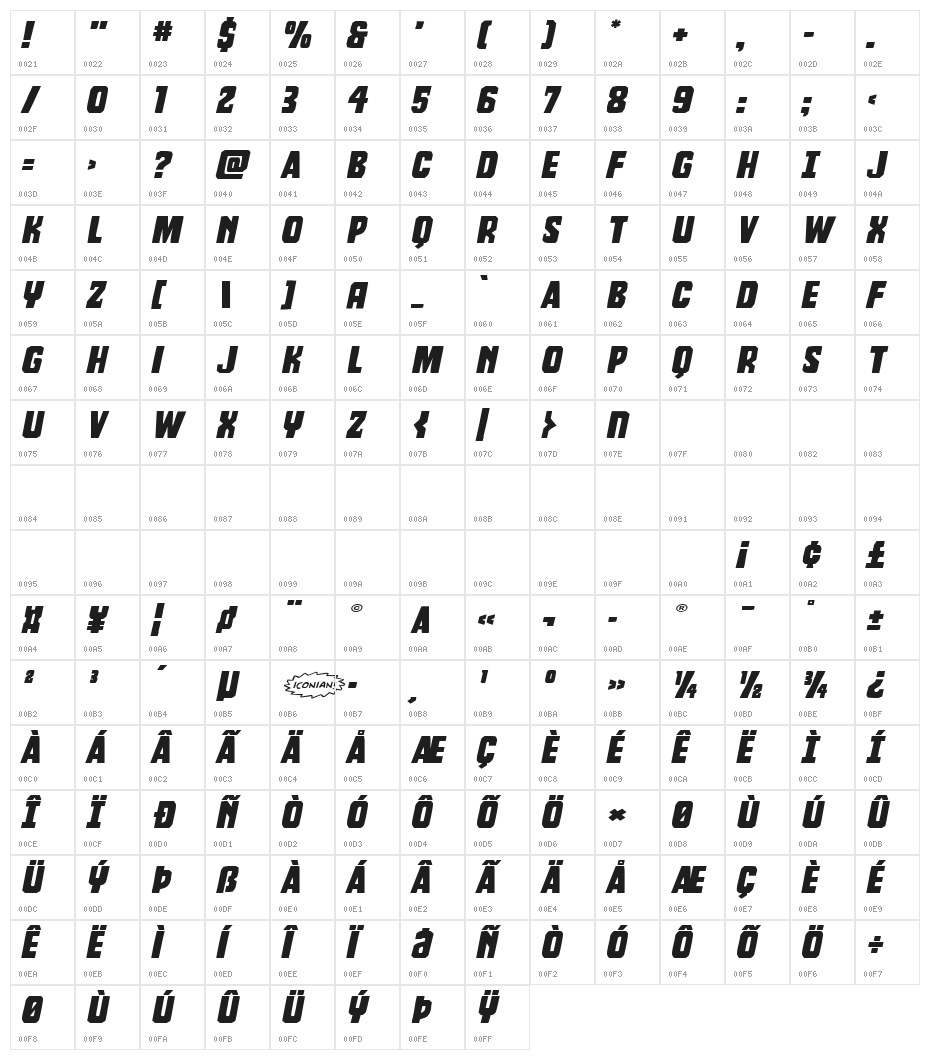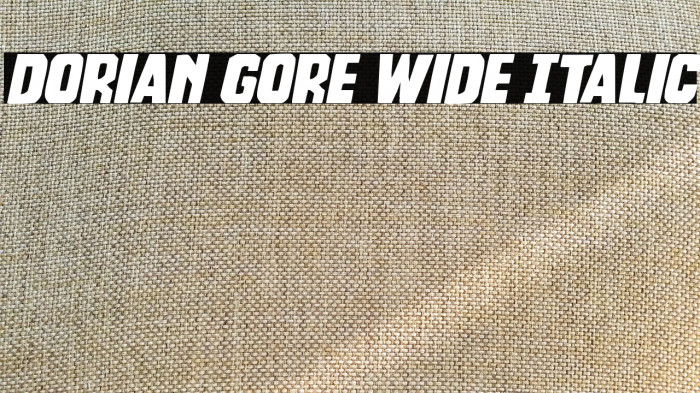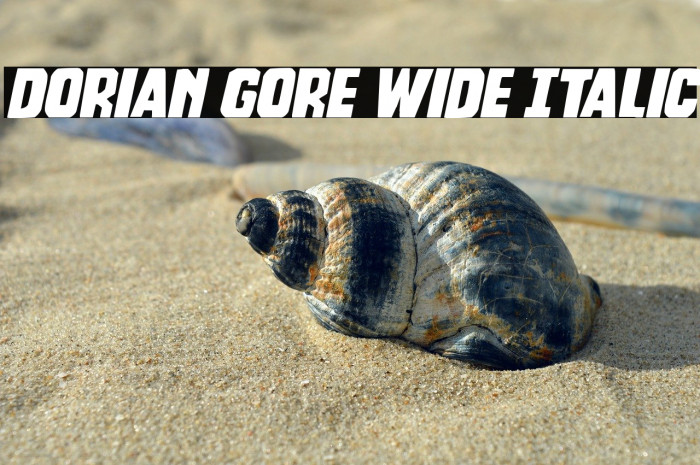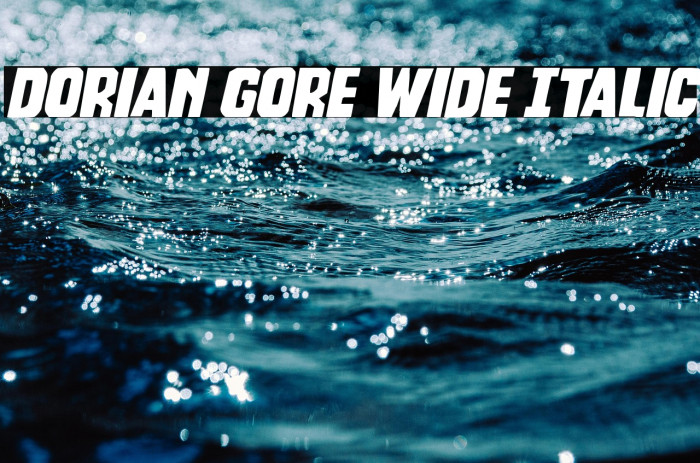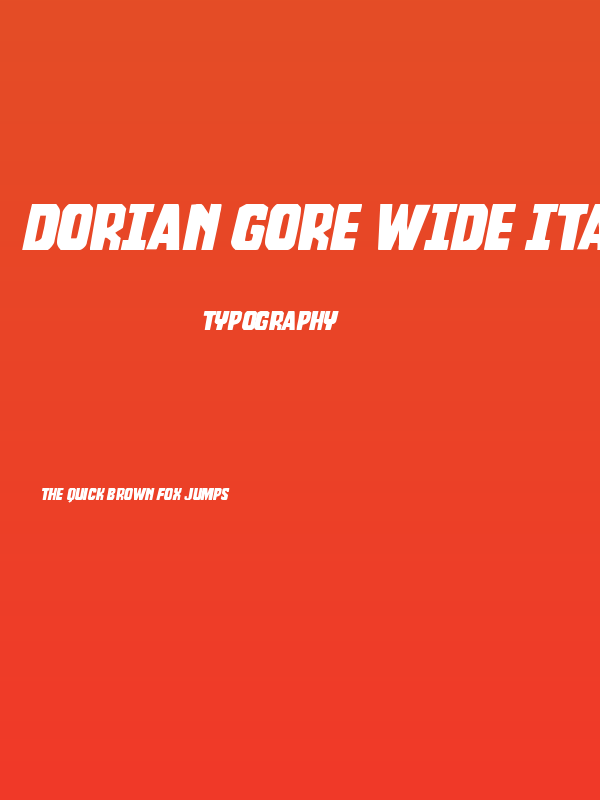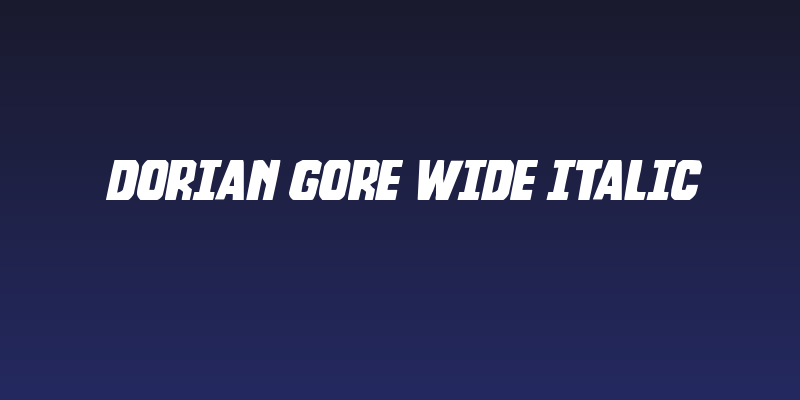
Dorian Gore Wide Italic Font
Dorian Gore Wide Italic Description
This font features a bold and wide design with a distinct italic slant, giving it a dynamic and energetic appearance. The characters are robust and impactful, making them suitable for attention-grabbing headlines or titles. The uppercase letters are particularly striking, with sharp angles and a strong presence. The numbers and special characters maintain the same bold and italicized style, ensuring consistency across all text elements. The overall design is modern and assertive, ideal for projects that require a strong visual impact.
| Proposed Projects | Ideal for sports branding, posters, advertising campaigns, and any project needing a bold statement. |